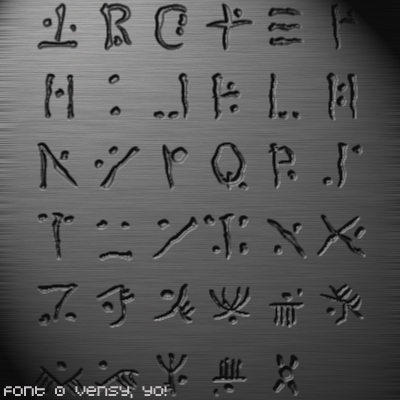
Venasean Font
7K ViewsWelp. Um. This is the language on Ven, it's pretty simple to read actually. c-C Aw well. I decided to upload it up here and such. I'm hoping I set everything up right. o _ o
I made this in Fontography, yush. And yes it's supposed to look messy, like a nature - type .. thing.